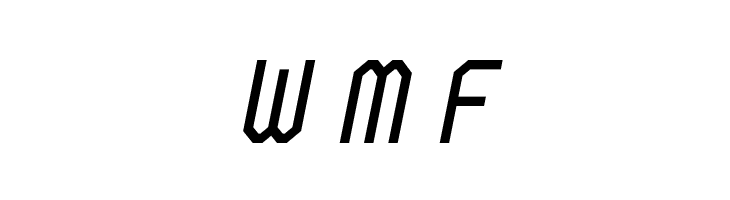
Geometric, dice-themed symbol font with numbers, directions, and dots.
A bold, geometric font with a strong, athletic aesthetic, ideal for sports-themed designs.
A bold, geometric font with a strong, industrial aesthetic.
A geometric, angular font with a futuristic and technical style.
A bold, decorative font with geometric borders and sans-serif characters.
A set of bold, high-contrast safety and warning symbols for clear communication.
A bold, 3D geometric font with a futuristic and abstract style.
A geometric, angular font with a futuristic and technical appearance.
A geometric, angular italic font with a modern, tech-inspired style.
A geometric, angular font with a modern, technical style.
A geometric, angular font with a modern, slanted design.
A geometric, angular typeface with a modern, italicized style.